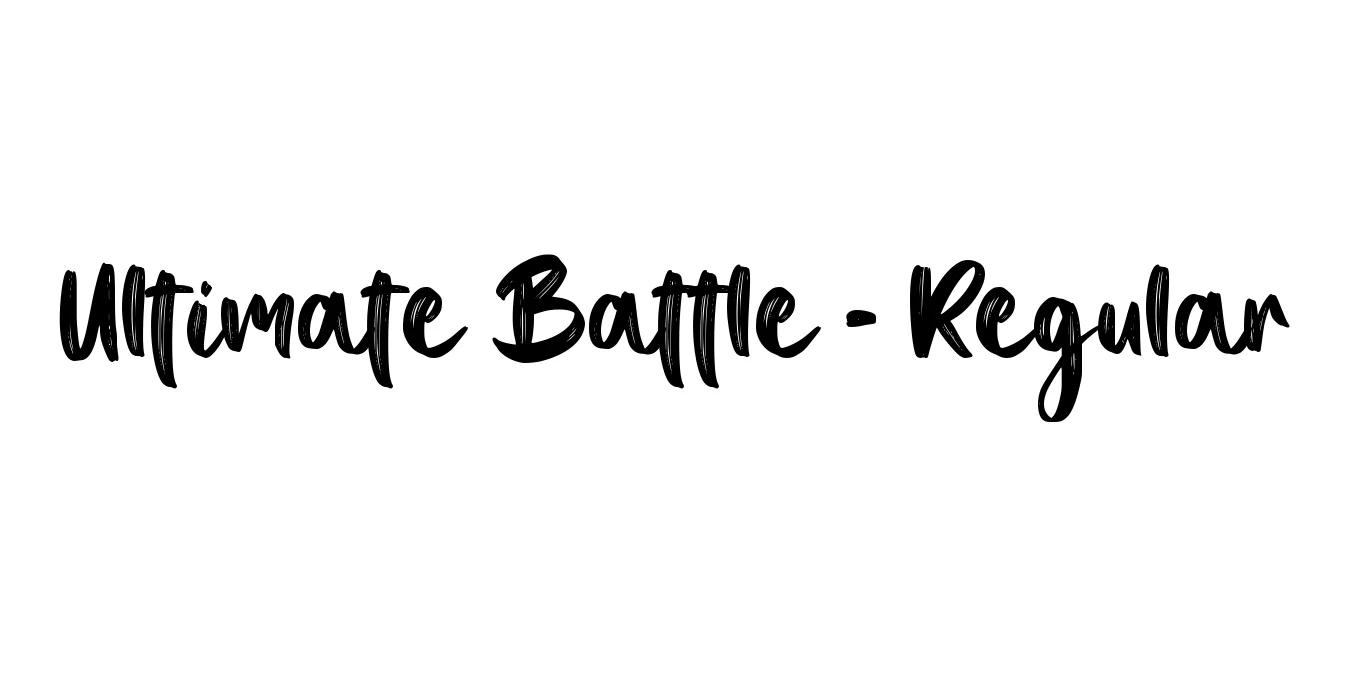
Ultimate Battle - Regular
Designed by Hendra Maulia (Blank Kids)
| Category | Brush Display |
| Designer | Hendra Maulia (Blank Kids) |
Ultimate Battle - Regular is a high-octane brush font designed to convey energy, movement, and intensity. Created by Hendra Maulia, this typeface features aggressive, hand-painted strokes that give it a raw and authentic feel. Its gritty texture and bold letterforms make it an ideal choice for projects that require a strong visual impact and an urban aesthetic.
This font is widely utilized in the gaming and sports industries due to its competitive and dynamic appearance. Whether applied to e-sports logos, action movie posters, or streetwear branding, Ultimate Battle stands out for its versatility in display settings. Its expressive nature ensures that every character carries a sense of urgency and power, making it a favorite for designers looking to break away from traditional typography.
Ultimate Battle - Regular Best Uses
Perfect for e-sports team logos and streaming overlays.
Ideal for high-energy action or thriller film titles.
Works great for gritty streetwear and gym clothing designs.
Captures attention in high-impact YouTube thumbnails and marketing banners.